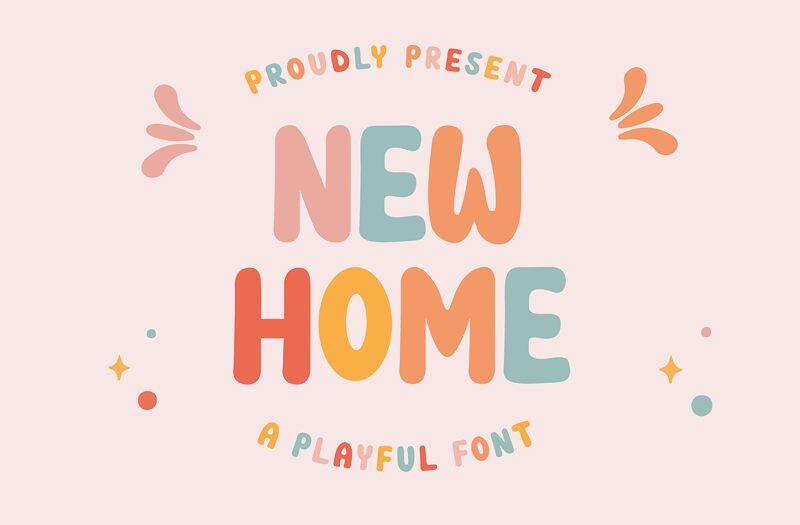
New Home Display font family by Faras Dina consists of 2 font styles that capture a cheerful and friendly mood. A free font family available in playful and informal styles. Rounded forms and smooth transitions are the primary elements that give this typeface its uniqueness. With a contemporary design suitable for a variety of applications, New Home has a youthful vibe that will absolutely shine if used appropriately.
In general, this typeface is suitable for branding projects, book designs, advertising, movie titles, game designs, apparel design, and packaging design. Additionally, it can be used in social media posts, banners, and anything related to kids’ applications.